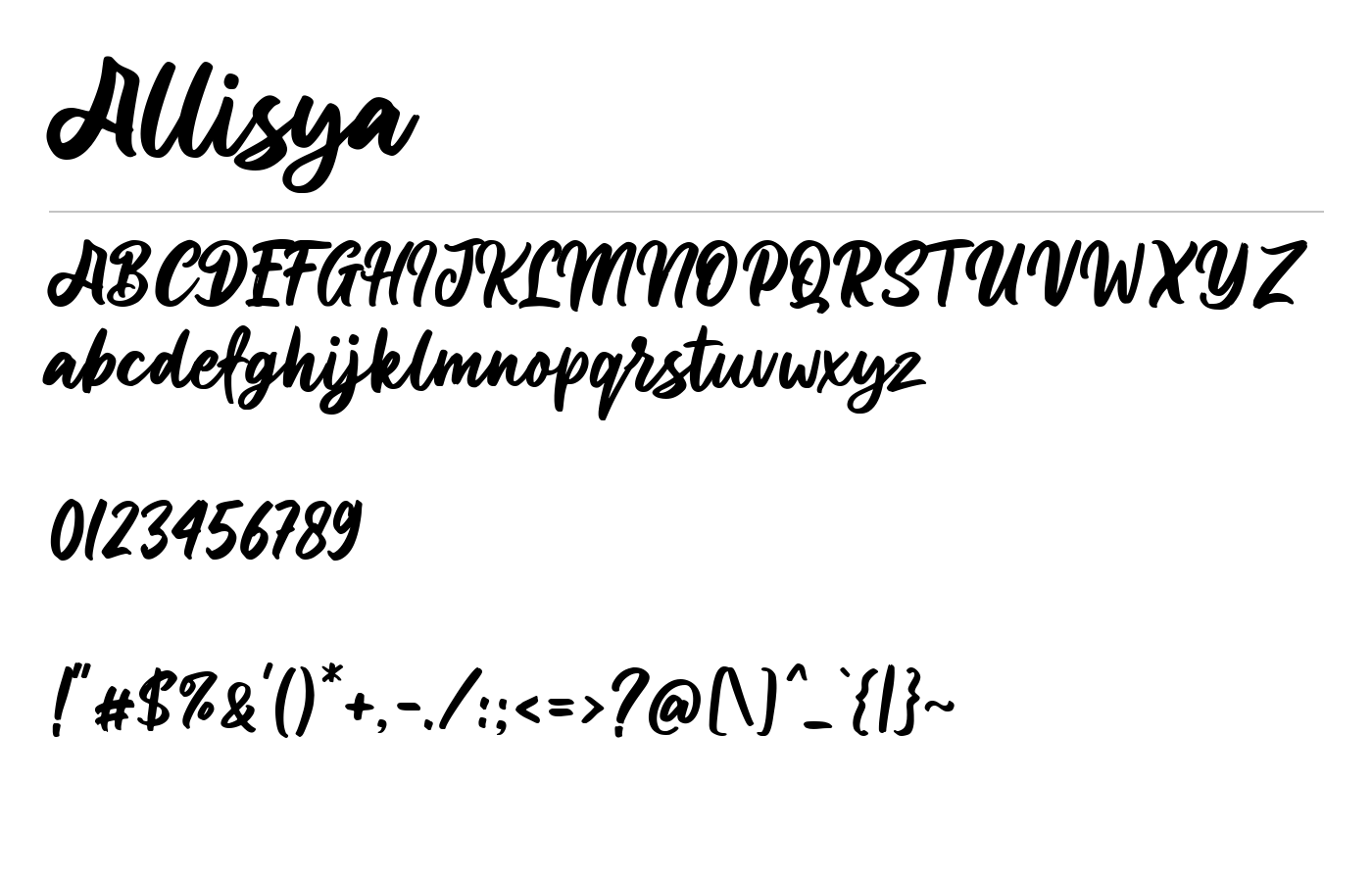
Allisya is a bold, playful script font with a lively and friendly personality, characterized by its fluid, brush-like strokes and smooth, rounded edges. Its upright, slightly condensed letterforms with medium contrast create a casual yet confident look, making it ideal for branding, invitations, and headlines that seek a warm, personal touch. This font works well in creative and informal contexts where emphasis on individuality and approachability is desired.
Allisya Font
About Allisya Font